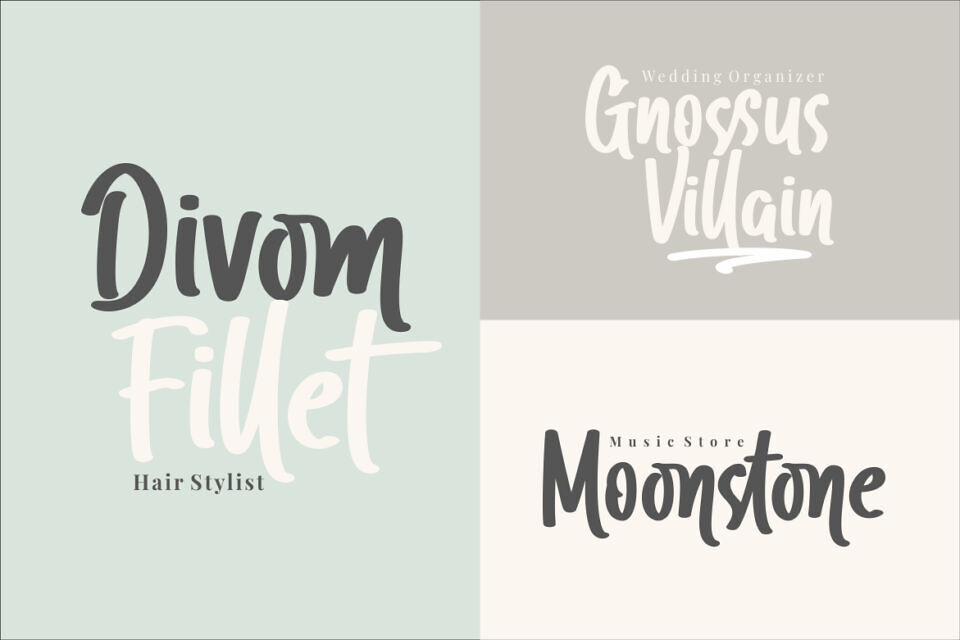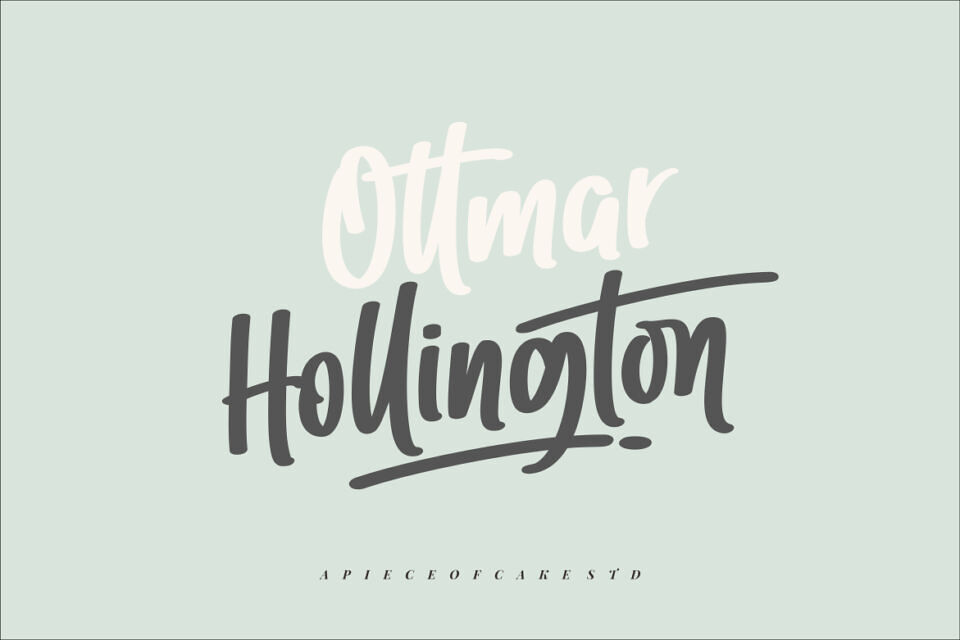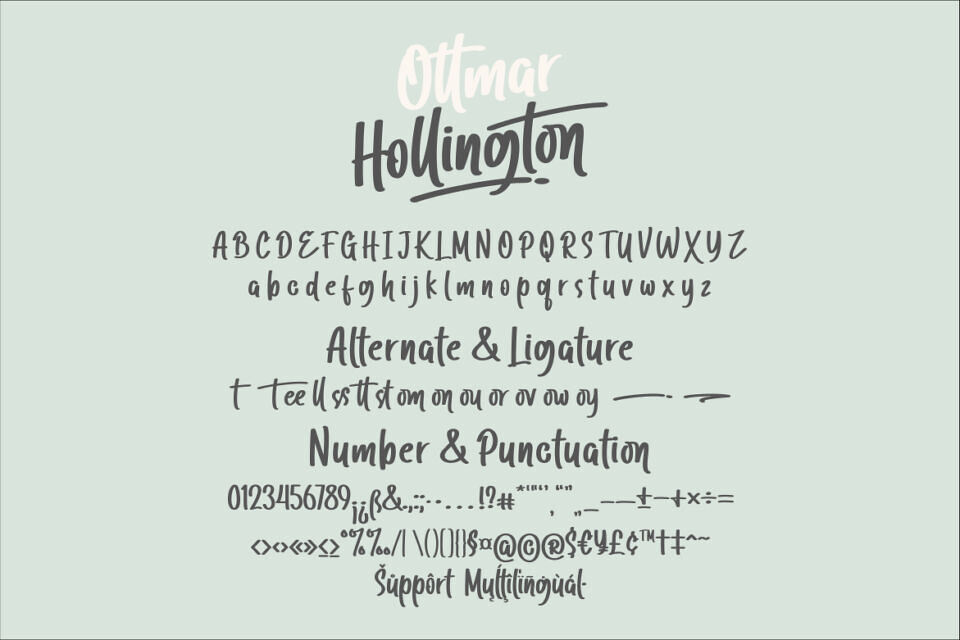
Ottmar Hollington Font
Ottmar Hollington is a versatile, stylish, and delicate handwritten font perfect for a wide spectrum of applications such as greeting cards, headlines, and many more! Add it to any of your creative projects, and it will give them a romantic and exquisite feel.
Designed by: a piece of cake